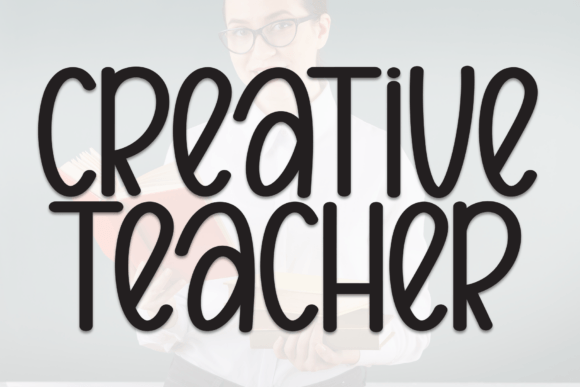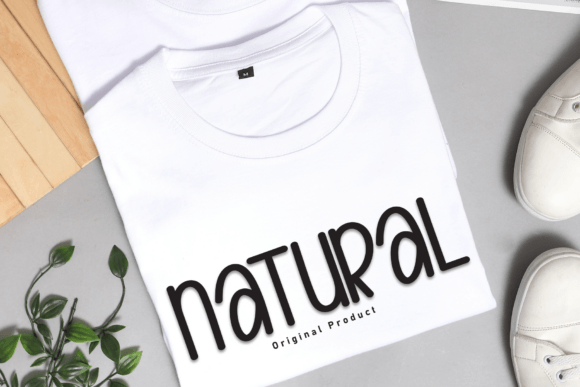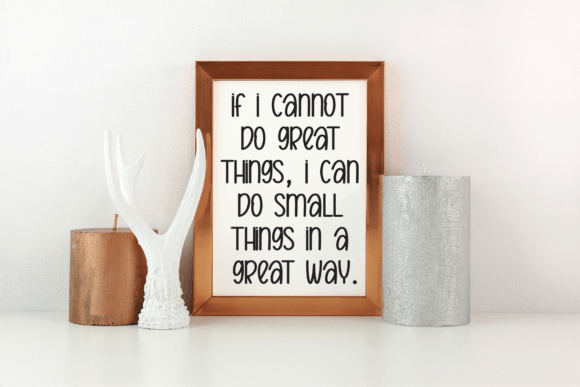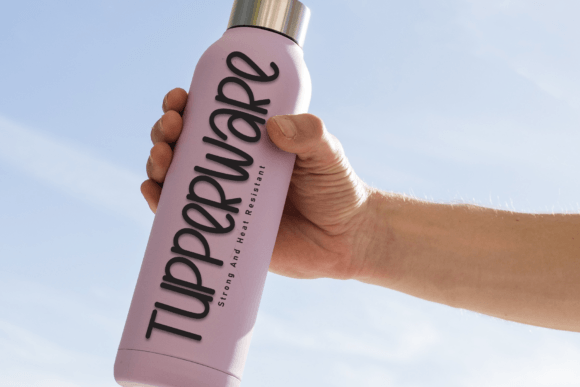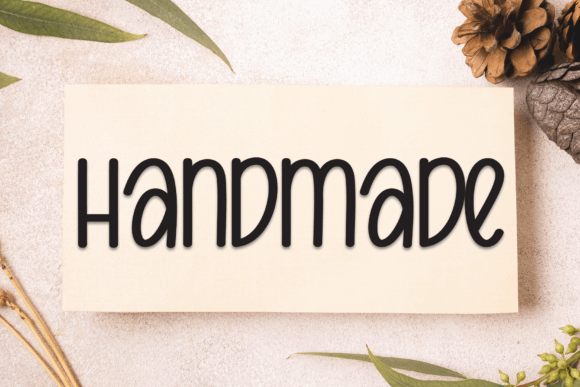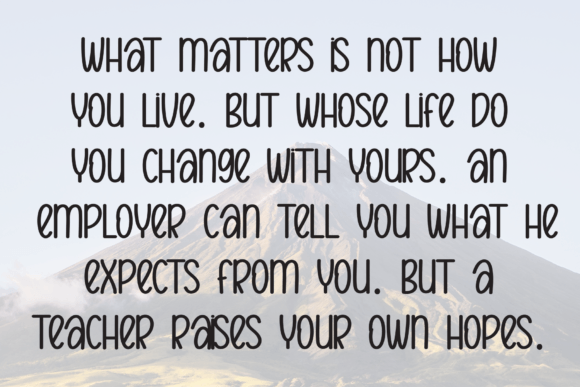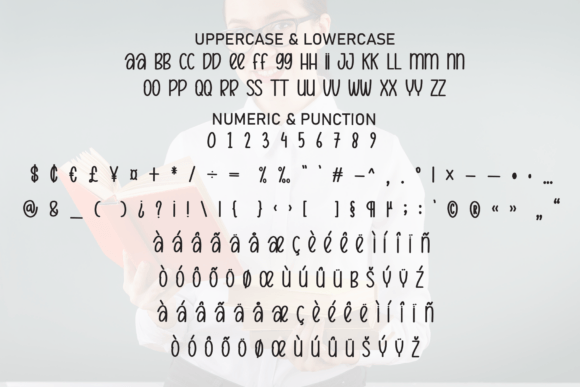
The Joy of Handwritten Charm: Introducing the Creative Teacher Font
Remember those carefree days of scribbling notes on a chalkboard or signing a birthday card with a flourish of the pen? There’s something special about handwritten notes that can’t be replicated with digital tools. The imperfections, the personality, and the charm all come together to create a unique and captivating experience.
Enter the Creative Teacher Font, a playful and friendly handwritten font designed to bring that same charm to your digital creations. Whether you’re crafting school projects, designing invitations, or simply looking for a way to add some personality to your work, this font is the perfect choice. Its casual, relaxed style makes it easy to read while still being attention-grabbing, making it a valuable addition to any designer’s toolkit.
Creative Teacher Font Key Features
- Font Family: The Creative Teacher Font family includes 6 unique styles: Regular, Italic, Bold, Bold Italic, Script, and Initials.
- Size and Resolution: Designed to be legible at various font sizes, from 8pt to 72pt, and suitable for print and digital media at resolutions up to 1200 DPI.
- Unique Characteristics: The Creative Teacher Font features a playful, handwritten style with subtle flair and movement, perfect for educational materials, children’s books, and creative projects.
Designer Review: Creative Teacher Font
As a designer, I was excited to dive into the Creative Teacher Font, a font specifically designed for educators. Here are my honest thoughts on what works well and what doesn’t.
- Unique Character**: The font has a distinctive, playful feel that immediately conveys a sense of creativity and approachability. It’s perfect for educational materials, worksheets, and other materials that need a friendly tone.
- Clear Readability**: Despite its unique appearance, the font is surprisingly clear and easy to read, even at smaller font sizes.
- Excellent for Children’s Content**: The font is well-suited for content targeting children, as it’s engaging and fun to look at.
- Limited Professional Use**: While great for educational materials, the font may not be suitable for more formal or professional contexts, such as business reports or academic papers.
- No Bold or Italic Variants**: The font lacks bold and italic variants, which can limit its versatility in certain design scenarios.
Overall, the Creative Teacher Font is a delightful choice for educational designers, offering a unique and engaging visual identity for teaching materials. However, its limitations may restrict its use in more formal or professional contexts.
Getting the Most Out of Creative Teacher Font
For the best results, use Creative Teacher Font in conjunction with bold and italic styles to create visual interest. You can also experiment with different font sizes to create hierarchy and emphasis.
Use Creative Teacher Font for educational materials such as lesson plans, worksheets, and presentations. You can also use it for creating engaging social media posts and flyers for school events.